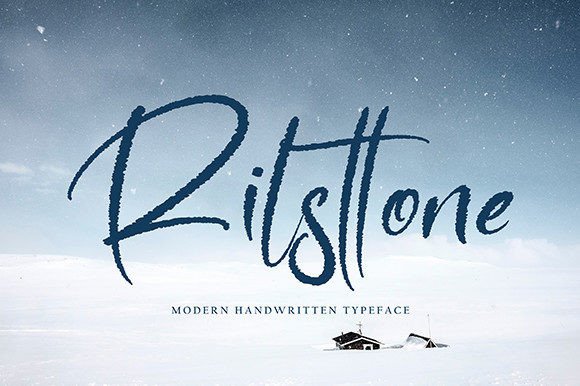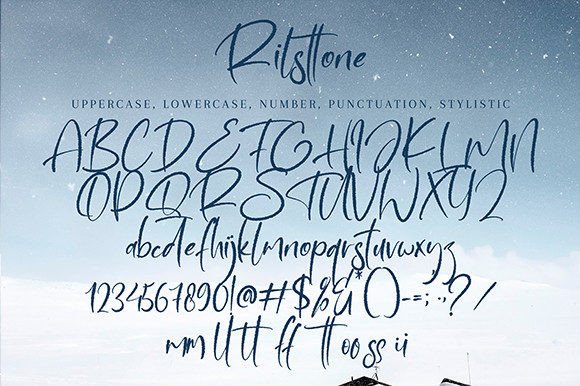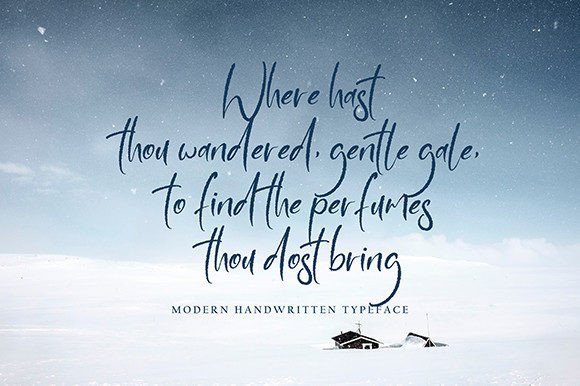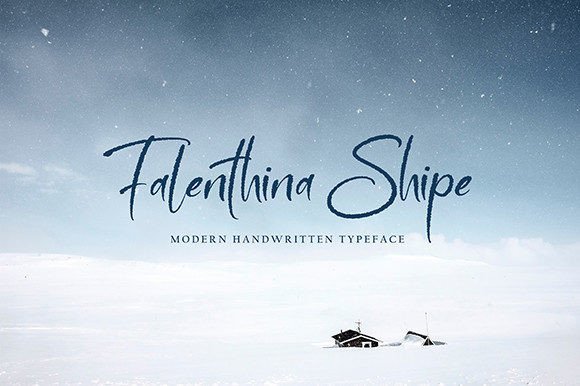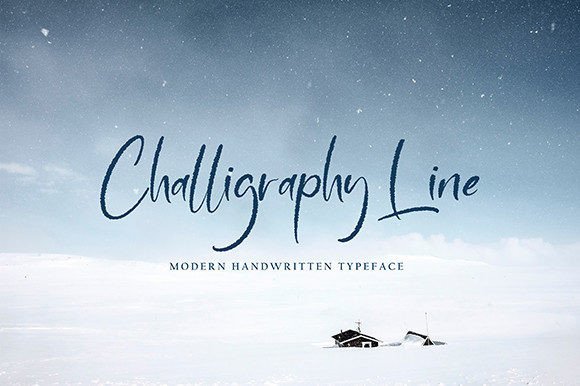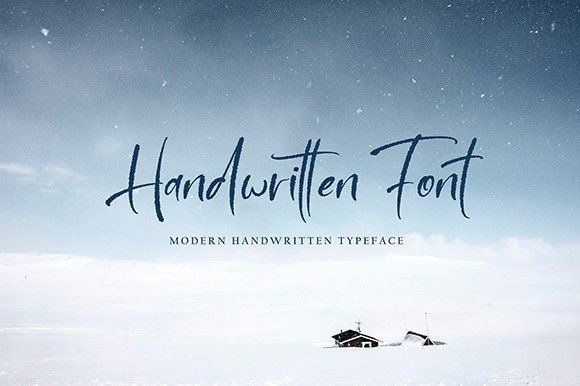
Rilsttone Font
Rilsttone Font Download – Modern Elegant Handwritten Script
The Rilsttone Font download is a modern handwritten typeface that blends elegance with creativity. With its smooth strokes and graceful look, this font works well for both personal and professional designs. Because it is versatile, it adds a stylish touch to any creative project.
Modern Style of RilsttoneFont Download
The RilsttoneFont download features flowing lines and clean curves. As a result, it feels polished while still looking natural. In addition, its neat rhythm ensures your text stays clear and beautiful across different formats.
RilsttoneFont Download for Invitations and Cards
Wedding invitations, thank-you cards, and greeting notes look stunning with the RilsttoneFont download. Not only does it add elegance, but it also creates a personal and heartfelt tone. Therefore, it is ideal for meaningful stationery.
Rilsttone Font Download for Logos and Branding
The RilsttoneFont download is also a great fit for logos, labels, and product packaging. Moreover, its handwritten style helps brands appear professional yet approachable.
RilsttoneFont Download in Posters and Creative Designs
The RilsttoneFont download adapts well to posters, banners, and digital layouts. In addition, its elegant script looks stylish both in print and online media, making your work more versatile.
Readability of Rilsttone Font Download
Some handwritten fonts may sacrifice clarity for style. However, the RilsttoneFont download balances readability with elegance. As a result, it is easy to use for large titles and smaller text alike.
Why Choose Rilsttone Font Download for Your Projects?
The RilsttoneFont download is flexible, stylish, and simple to use. In other words, it works well for personal creative projects and professional branding. Finally, it is a handwritten script that brings elegance to every design.